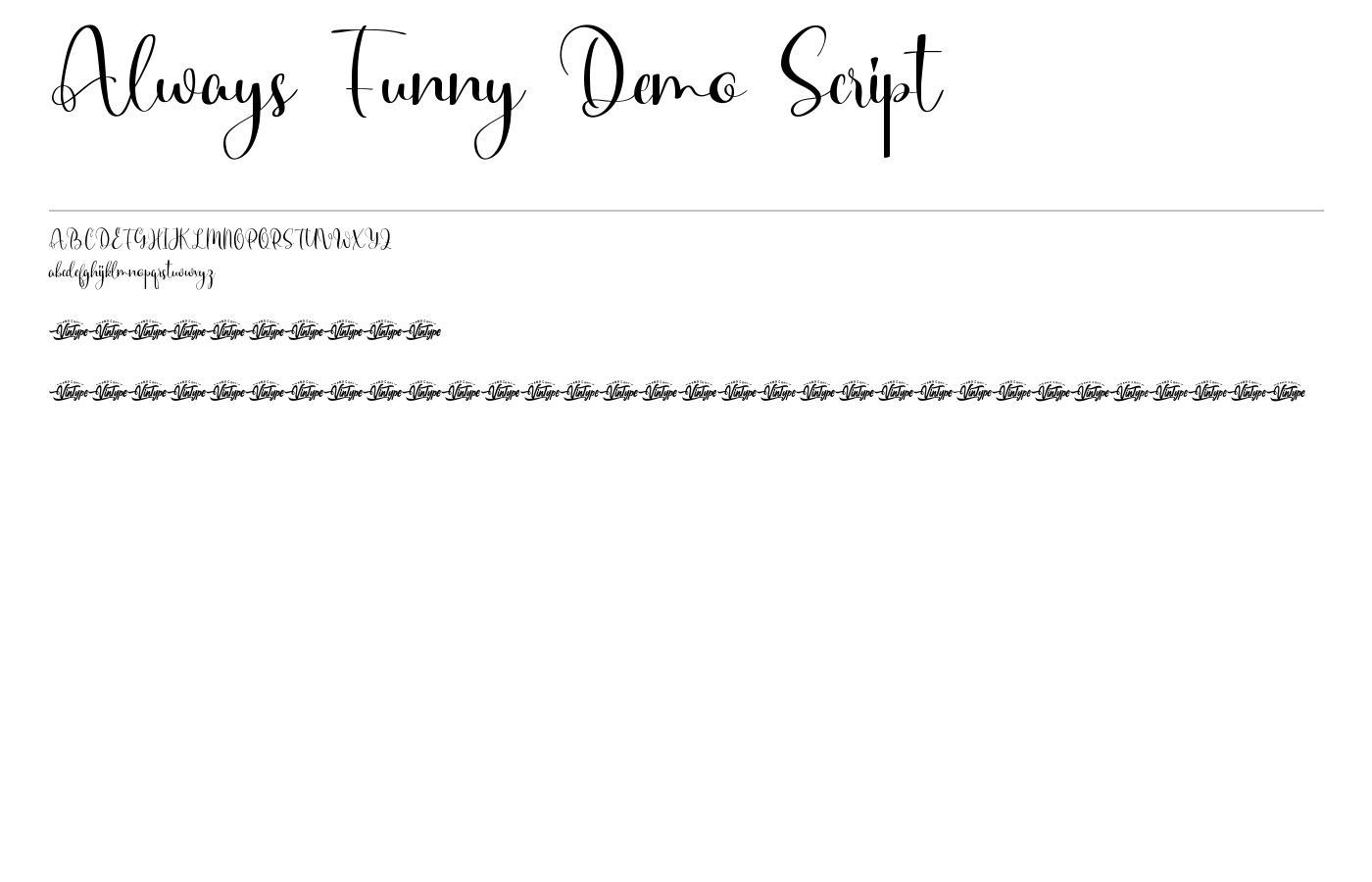
Always Funny Demo is a delicate script font with a light, flowing style that features elegant, thin strokes and charming swashes. Its playful and sophisticated character makes it perfect for creative branding, invitations, and stylish headlines where a graceful, handwritten feel is desired. This font brings a touch of warmth and personality to designs that seek a refined yet approachable look.
Always Funny Demo Font
About Always Funny Demo Font